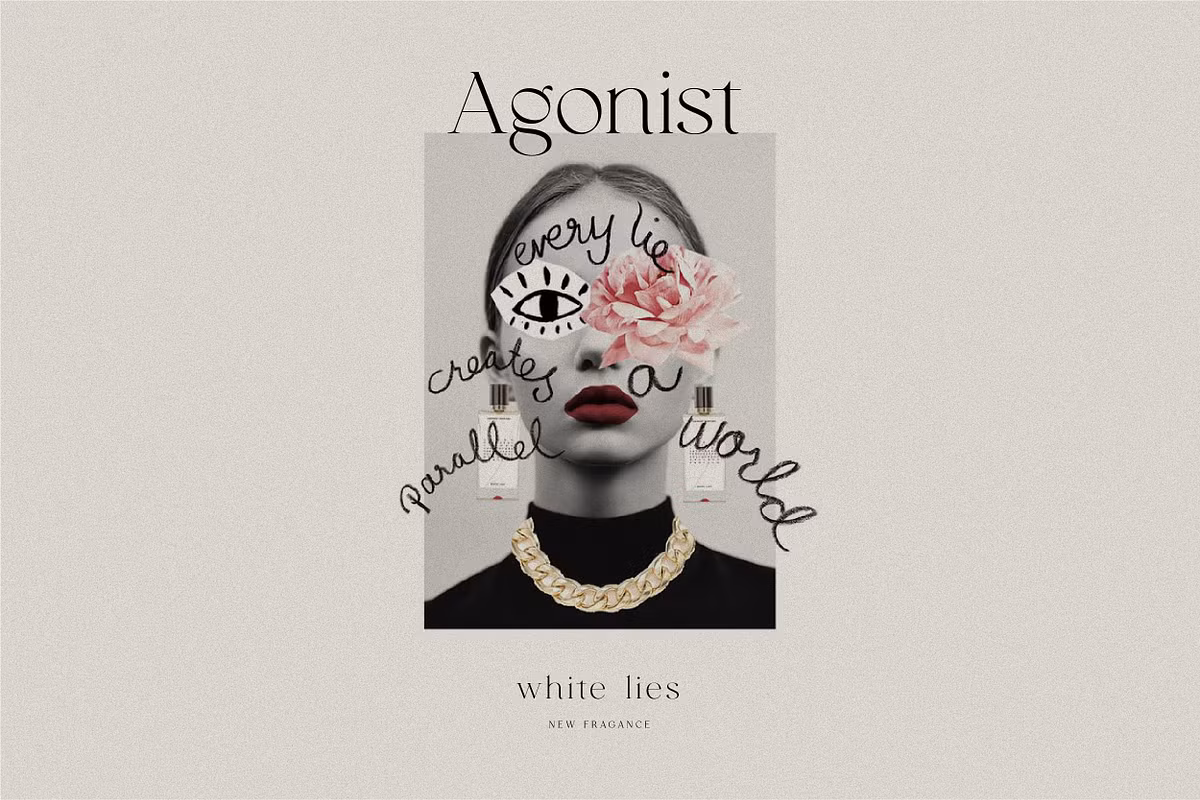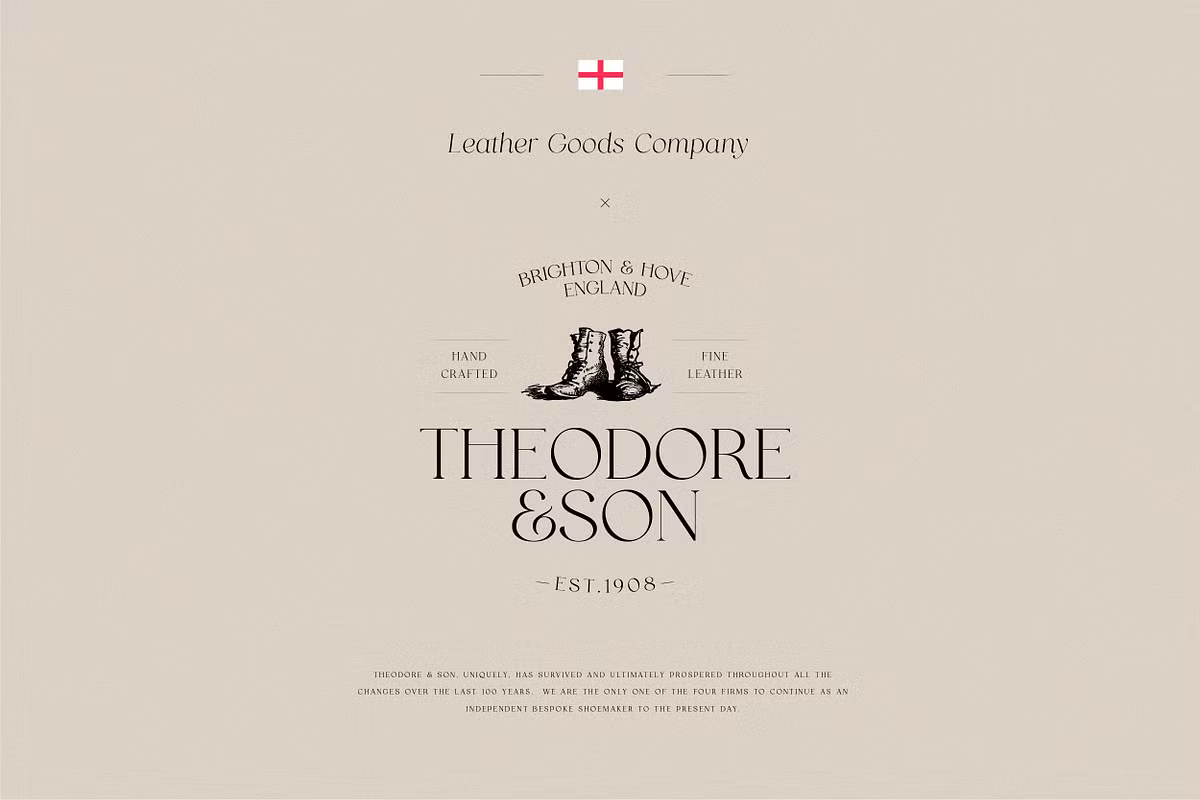
Muse – Chic Display Serif: Elegant Font for Fashion and Lifestyle Design
Introduction to Muse
Muse is a really stylish font with a modern look. It’s great for projects that need a touch of elegance, like fashion designs. The way it’s made gives it a beautiful balance that catches the eye. If you’re working on something like a logo, title, or magazine page, Muse is a great choice because it’s versatile and looks amazing. It can really make your design stand out and give it a high-end feel. Whether you’re going for simple and classy or bold and fancy, Muse has the style to make your project look great. It’s perfect for anyone who wants to add a bit of sophistication to their work.
Design Style of Muse
Muse has a really elegant look with its modern serif details, which adds a level of sophistication to any writing. The way it’s designed is all about balance, making sure it’s easy to read and nice to look at. What makes it stand out is the contrast between the thicker and thinner lines, which creates a nice visual effect. This makes it a great choice for high-end fashion brands and lifestyle magazines that want to look their best. And with the Muse Italic version, you get even more options for playing around with different typography styles, which is really useful for creating a unique look.
Visual Appeal and Contrast
Muse is a beautiful font with smooth curves and sharp edges. What makes it stand out is the way it uses different line thicknesses to add depth and draw your eye to important parts of the design. This makes it perfect for headings and titles where you want to make an impact. The italic version of Muse is also really nice, it adds a flowing feel that works well with the regular style, giving designers a lot of options to create a consistent but varied look with their typography. The way the italic and regular styles work together is really great, it lets designers create a unique and interesting visual style. Muse is a great choice for anyone who wants to add some elegance and sophistication to their design.
Character Sets and Ligatures
Muse is a great font for companies that work with people from all over the world, because it has all the letters and symbols needed for European languages. This makes it really useful for projects that need to be translated into many different languages. One of the best things about Muse is that it has lots of ligatures, which are special connections between letters that make the text look smooth and beautiful. These ligatures are really helpful when you’re designing text layouts and want them to look perfect. They make the words flow nicely and are easy on the eyes. Overall, Muse is a great choice for anyone who wants a font that is both stylish and practical for use in many different languages.
Using Ligatures in Muse
Use Cases for Muse
Muse is a really flexible font that works well in many different situations. Some examples of where it’s particularly useful include:
- Branding: Muse is perfect for creating elegant logos that communicate luxury and sophistication. Its unique style can help a brand stand out in a crowded market.
- Editorial Design: Whether for magazines, brochures, or online publications, Muse can impart a sense of style and professionalism in editorial layouts.
- Event Invitations: The elegance of Muse makes it a superb choice for wedding invitations, gala event announcements, and other formal stationery.
- Social Media Graphics: Use Muse to create eye-catching posts and stories that reflect a chic lifestyle and attract attention on platforms like Instagram and Pinterest.
Pairing Suggestions with Muse
To get the most out of Muse in your design work, try combining it with other typefaces that complement it well. There are some great pairings that really bring out the best in Muse.
- Sans-serif Fonts: Pair Muse with a clean sans-serif font like Montserrat or Open Sans for a modern contrast that balances elegance with simplicity.
- Script Fonts: For a more decorative approach, combine Muse with a flowing script font like Great Vibes, which can add a romantic touch to any design.
- Classic Serif Fonts: To give your design a timeless look, try pairing Muse with a classic serif font like Georgia. This combination creates a nice contrast that still looks elegant and refined.
Muse is not just a font, it’s a way to show elegance and style. Its design is chic and it has a lot of characters, so it can be used in many languages. This makes it perfect for projects about fashion and lifestyle. The font also has ligatures, and now there’s a new version called Muse Italic, which makes it even more appealing. Whether you’re making a brand identity, designing pages for a magazine, or creating beautiful invitations, Muse has the look and functionality that designers need today. Use Muse in your next project and see how it can turn your designs into something truly sophisticated. With its extensive character set and support for multiple languages, Muse is a great choice for designers who want to create something special. It’s a font that can help you make a statement and show off your style.